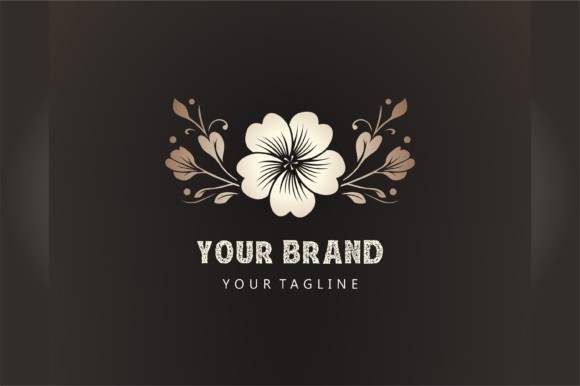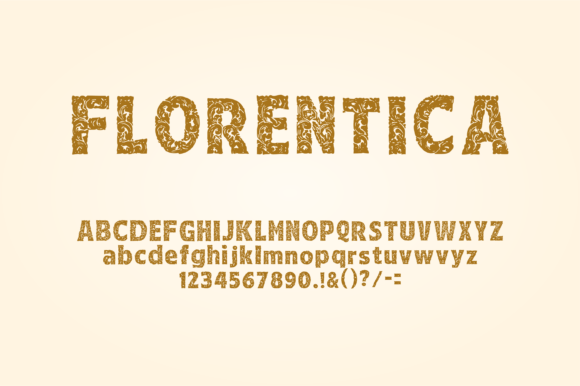
The Elegance of Florentica Font: A Designer’s Delight
I’ll never forget the time I was working on a wedding invitation project, and my client asked for a font that exuded luxury and sophistication. I scoured the internet, tried countless fonts, but nothing seemed to fit the bill. That was until I stumbled upon Florentica Font. With its intricate floral motifs and classic ornamental flair, it was love at first sight! In this article, I’ll share my experience with Florentica, its features, and how to make the most of this beautiful font.
What is Florentica Font?
Florentica is a luxurious decorative typeface designed with intricate floral motifs and classic ornamental flair. It’s perfect for branding projects, wedding invitations, premium packaging, product labels, artistic posters, and more. This font includes uppercase and lowercase A–Z characters, numbers 0–9, and standard punctuation symbols. Each letter is crafted with timeless vintage engraving details, offering a bold yet elegant aesthetic.
Honest Review
- ✨ Intricate floral motifs and classic ornamental flair
- ✅ Elegant and sophisticated aesthetic
- ✅ Includes uppercase and lowercase A–Z characters, numbers 0–9, and standard punctuation symbols
⚠️ While Florentica is a beautiful font, it’s not suitable for body text or long-form content. Its ornate design makes it better suited for headlines, titles, or short phrases. 🤔 Additionally, some users may find the font a bit challenging to read at smaller sizes.
Florentica was inspired by the works of 18th-century French typographers, who were known for their intricate and ornate designs. The font’s creator aimed to capture the essence of this era, combining classic elegance with modern sophistication. The result is a font that’s both timeless and trendy, perfect for designers looking to add a touch of luxury to their projects.
Q: Is Florentica Font suitable for body text?
A: No, Florentica Font is not suitable for body text or long-form content. Its ornate design makes it better suited for headlines, titles, or short phrases.